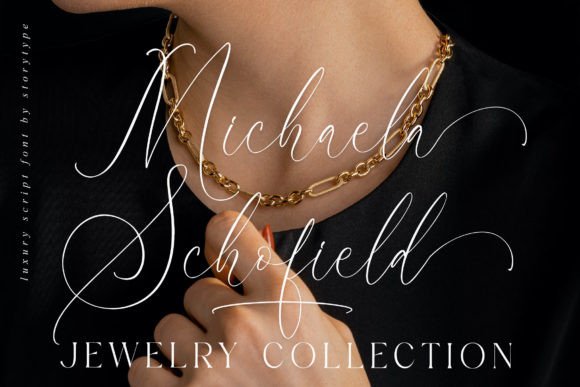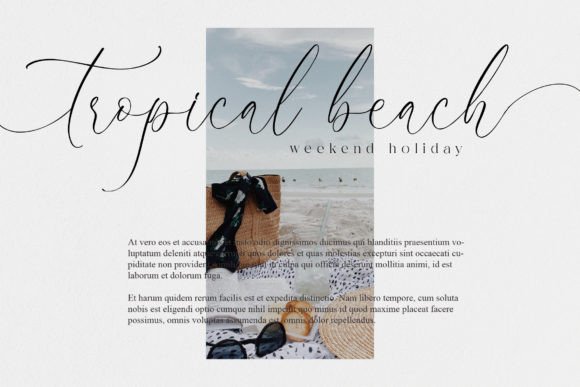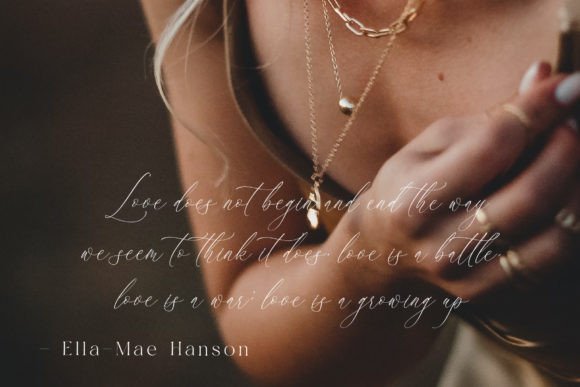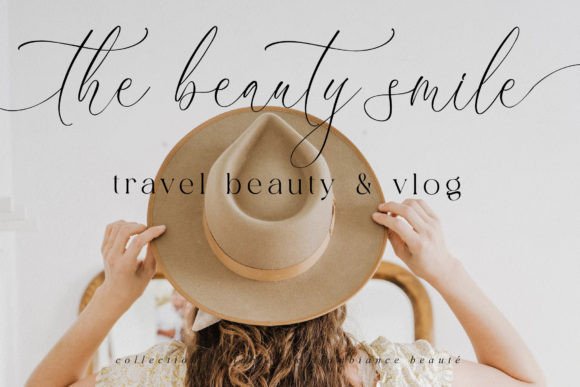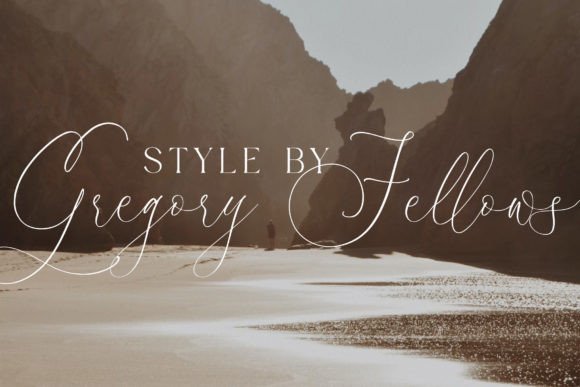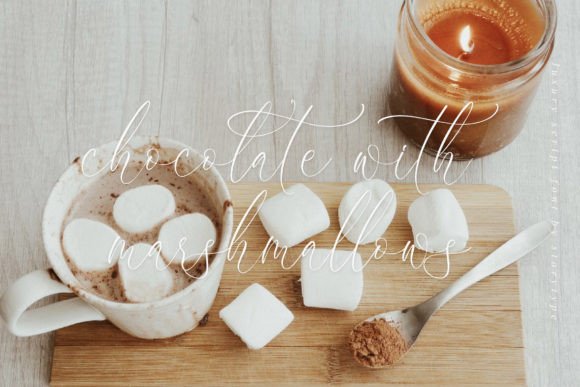
Athena Modern Font: Elevate Your Designs with Luxury and Elegance
Are you looking for a font that exudes luxury, elegance, and sophistication? Look no further than Athena Modern Font, a stunning script font that is sure to take your designs to the next level. In this article, we’ll dive into the features and benefits of Athena, and explore how this versatile font can be used in a variety of creative projects.
Introducing Athena Modern Font
Proudly presented, Athena is a modern and luxurious script font that boasts a unique style and fancy look. This beautiful typeface is perfect for designers and crafters who want to create elegant and high-end designs that stand out from the crowd. With its flowing lines, intricate details, and refined aesthetic, Athena is the ideal choice for a wide range of applications, from luxury logos and branding to book and movie titles, fashion magazines, and more.
Key Features of Athena Modern Font
- Unique Style and Fancy Look: Athena’s distinctive design makes it perfect for creating eye-catching and memorable designs that showcase your brand’s personality and style.
- Elegant and Luxurious: Athena’s refined aesthetic and sophisticated vibe make it ideal for high-end designs, such as luxury logos, fashion branding, and premium product packaging.
- Versatile: This font can be used in a wide range of applications, from digital designs to print materials, including book and movie titles, magazine layouts, clothing, and more.
Use Cases for Athena Modern Font
Athena Modern Font is an incredibly versatile typeface that can be used in a variety of creative projects. Here are some inspiring use cases to get you started:
- Luxury Logos and Branding: Create a lasting impression with a custom logo or brand identity that showcases your business’s unique personality and style.
- Book and Movie Titles: Add a touch of elegance and sophistication to your book or movie titles with Athena’s refined and luxurious aesthetic.
- Fashion Branding and Magazines: Elevate your fashion brand or magazine with a stylish and eye-catching design that showcases Athena’s unique style and flair.
- Clothing and Apparel: Create stunning clothing and apparel designs that stand out from the crowd with Athena’s intricate details and flowing lines.
- Lettering and Quotes: Use Athena to create beautiful lettering and quotes that inspire and delight your audience.
Tips and Tricks for Working with Athena Modern Font
To get the most out of Athena Modern Font, here are some tips and tricks to keep in mind:
- Experiment with Swashes and Glyphs: Take advantage of Athena’s PUA encoding to access a wide range of swashes and glyphs that can add an extra layer of creativity and personality to your designs.
- Play with Font Sizes and Styles: Athena looks great in a variety of font sizes and styles, so don’t be afraid to experiment and find the perfect combination for your design.
- Pair with Other Fonts: Athena pairs beautifully with other fonts, so try combining it with complementary typefaces to create a unique and visually appealing design.
In conclusion, Athena Modern Font is a stunning and versatile typeface that is perfect for designers and crafters who want to create elegant, luxurious, and sophisticated designs. With its unique style, fancy look, and PUA encoding, Athena offers endless creative possibilities for a wide range of applications. Whether you’re looking to create a luxury logo, fashion brand, or book title, Athena is the perfect choice for adding a touch of elegance and refinement to your designs.